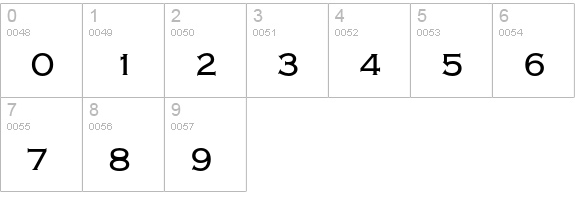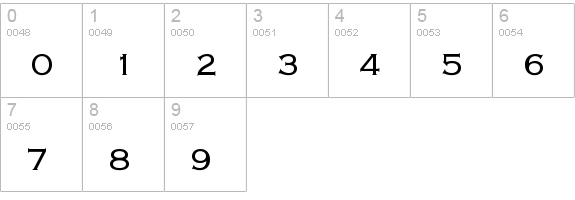
Copperplate Gothic Font Details
Copperplate Gothic font is a timeless and elegant typeface known for its classic and sophisticated appearance. With its bold, clean lines and distinctive serifs, Copperplate Gothic exudes a sense of professionalism and refinement. Perfect for a wide range of design projects, from logos to invitations, this font commands attention and conveys a sense of tradition and authority. And the best part? Copperplate Gothic font is available for free download at FontsMarket.com. Whether you're a seasoned designer looking to add a touch of sophistication to your work or a novice eager to experiment with a new style, Copperplate Gothic font is a versatile choice that will elevate your designs to the next level. Download it today and start creating stunning visuals that make a lasting impression.